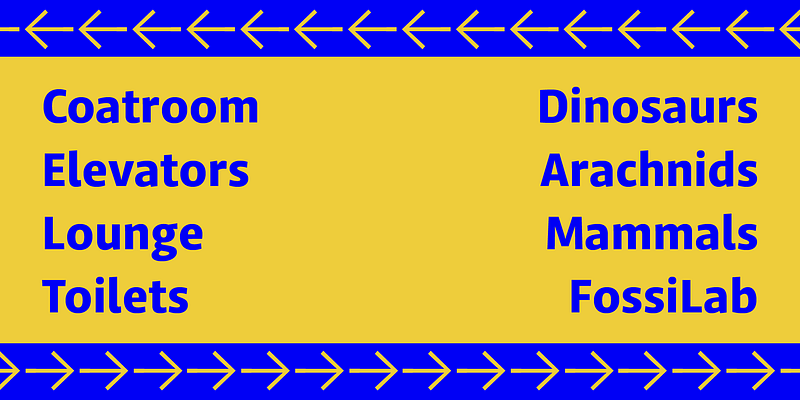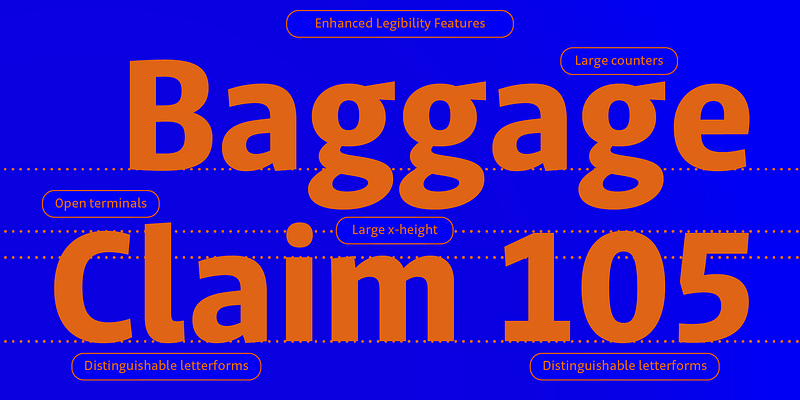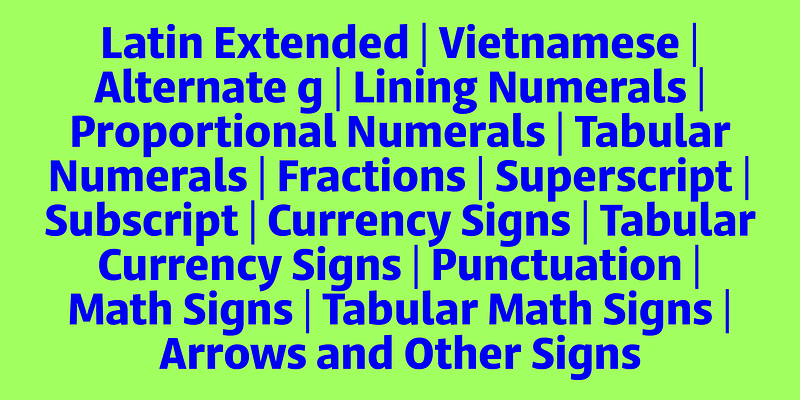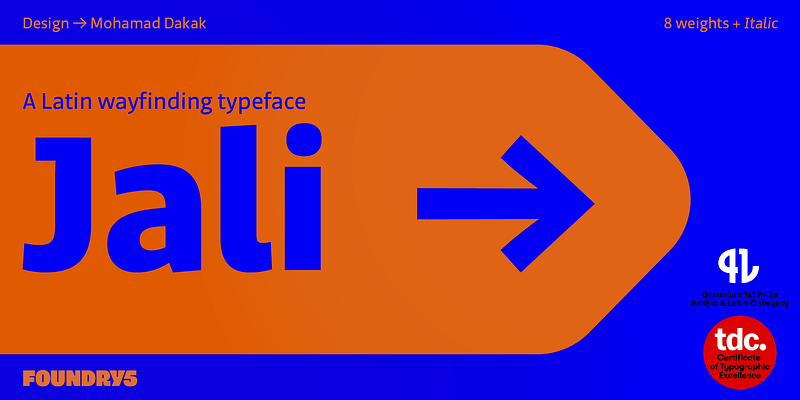
Jali is a humanist sans serif typeface particularly suited for wayfinding. Jali combines Arabic, Greek, and Latin in harmony while keeping a native voice for all scripts. The design concept started as a graduation project motivated by the lack of Arabic typefaces that successfully serve design and readability requirements. The project was later positioned for the market and expanded to make the type family reach its maximum potential in the supported scripts.
The name ‘Jali’ means clear in the Arabic language. The design of Jali reflects the ethos of its name. The combination of low-contrast strokes, ample counters, dots, and distinguishable marks make Jali a versatile typeface. With its humanistic voice and clear letterforms, Jali aims at offering a warm and efficient reading experience. Similar to other wayfinding type families, Jali is also well suited for demanding typographic environments.
Foundry5 is a contemporary type foundry established in 2021, creating high-quality, multi-script typefaces that balance cultural authenticity with modern functionality. Believing that every script holds unique design potential, the foundry approaches Latin, Greek, Cyrillic, Arabic, Devanagari, and beyond with equal care, producing work that is both visually distinctive and technically refined. Its team brings deep academic rigor and lived cultural perspectives to their practice, ensuring that the scripts they design are represented with both expertise and authenticity.
The library includes versatile releases such as Peridot, a multi-width sans-serif spanning four global scripts; Jali, a humanist design crafted for seamless readability across Arabic, Latin, and Greek; and Evert, a modern grotesque that blends expressive detailing with extensive stylistic features—with additional scripts and families currently in development. Foundry5’s work has been recognized internationally with numerous awards, including honors from the Type Directors Club, Granshan, Ebge, and Communication Design.